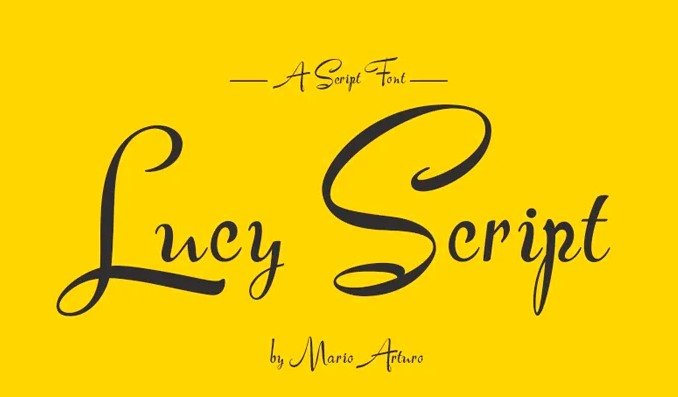
You can take a view in the above picture that this font contains the best-scripted typeface designs which you will use in making your projects gorgeous and brilliant. The font supports many multilingual which allows you to make your designs in any language, you can use for all kinds of projects you have.
What Type of Font Is Lucy Script?
The Lucy Script Font is the famous and amazing typeface which was product of the combination Mario Arturo.